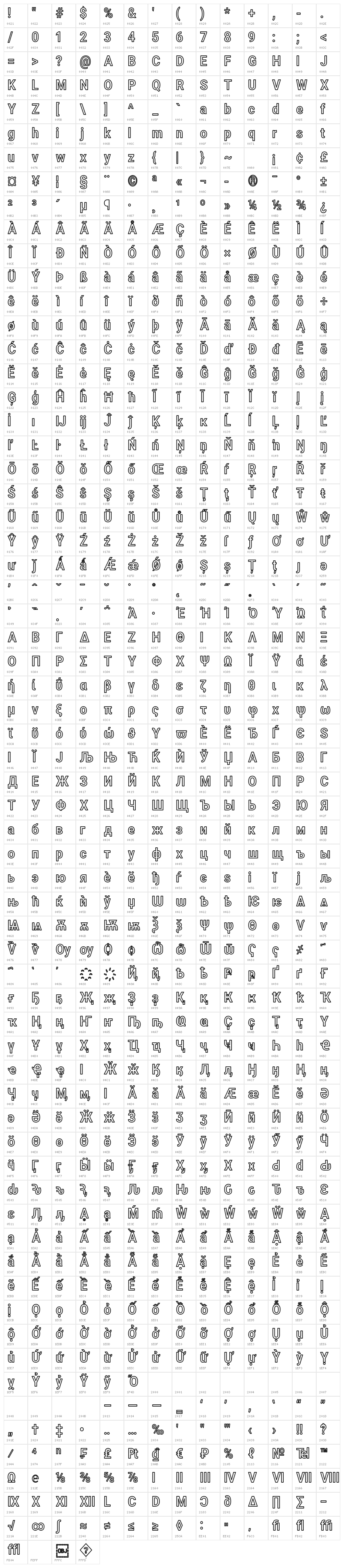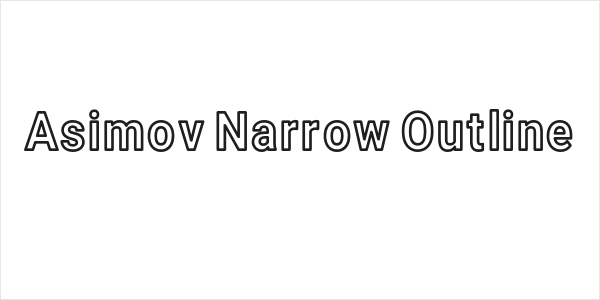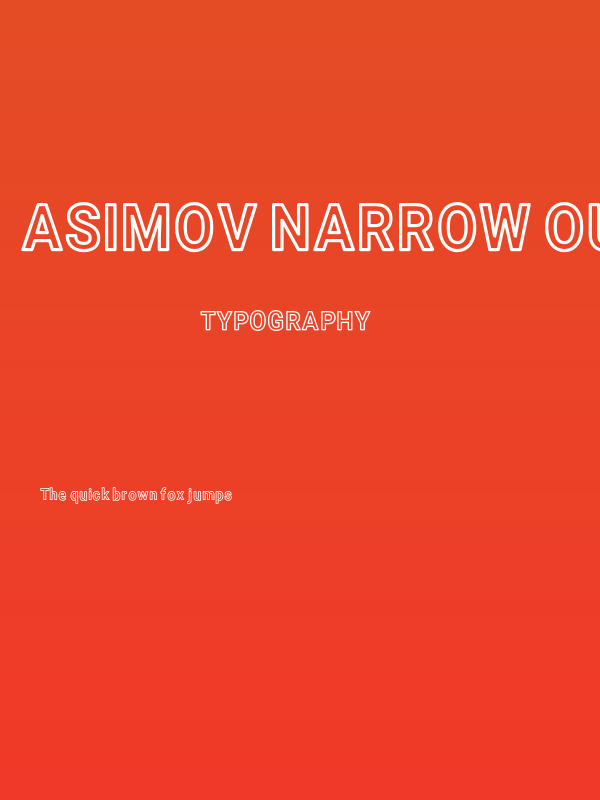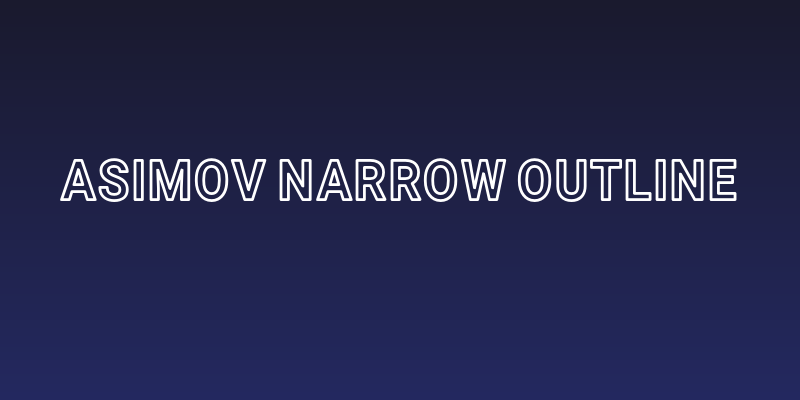
Asimov Narrow Outline Font
Asimov Narrow Outline Description
This font features a modern and sleek outline style, characterized by its narrow and elongated letterforms. The uppercase and lowercase letters maintain a consistent height, providing a uniform appearance. The numerals and special characters are designed to complement the alphabet, with clean lines and a balanced structure. The outline effect gives it a distinctive look, making it stand out in various design applications. Its geometric shapes and precise curves contribute to a futuristic and contemporary aesthetic.